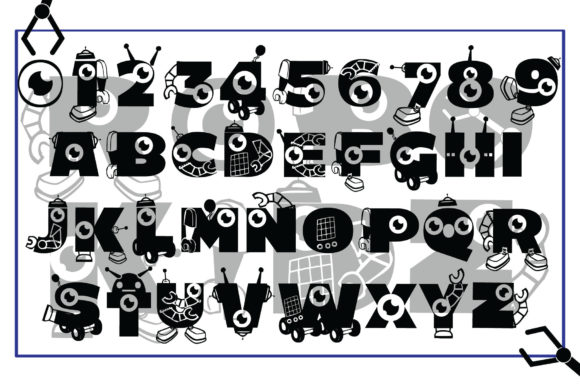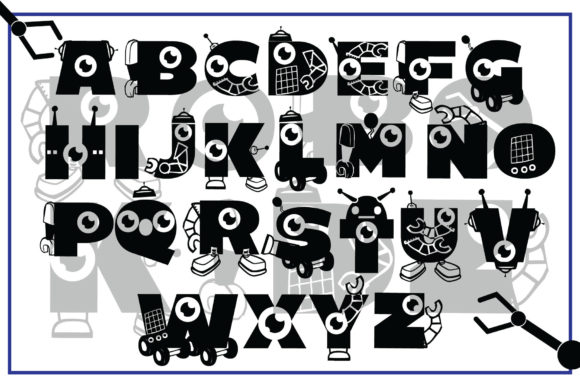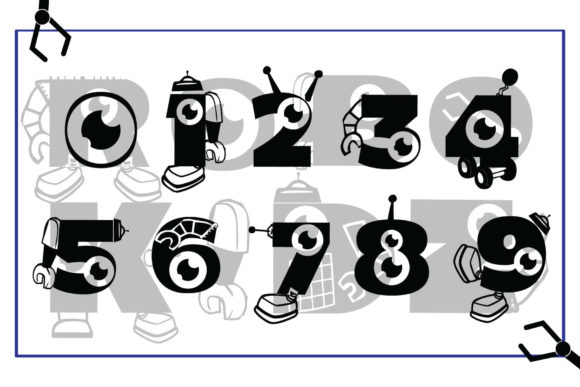
Introduction to Robokidz Font
Robokidz is a bold and incredibly cool decorative font.
It can be used for various design ideas, particularly those related to children, cartoons, and games This font is PUA encoded which means you can access all of the glyphs and swashes with ease.
Key Features of Robokidz Font
Why Choose Robokidz Font?
Robokidz Font offers exceptional quality and versatility, making it a valuable addition to your design toolkit. Whether you’re creating for personal projects or commercial use, Robokidz Font delivers professional results.